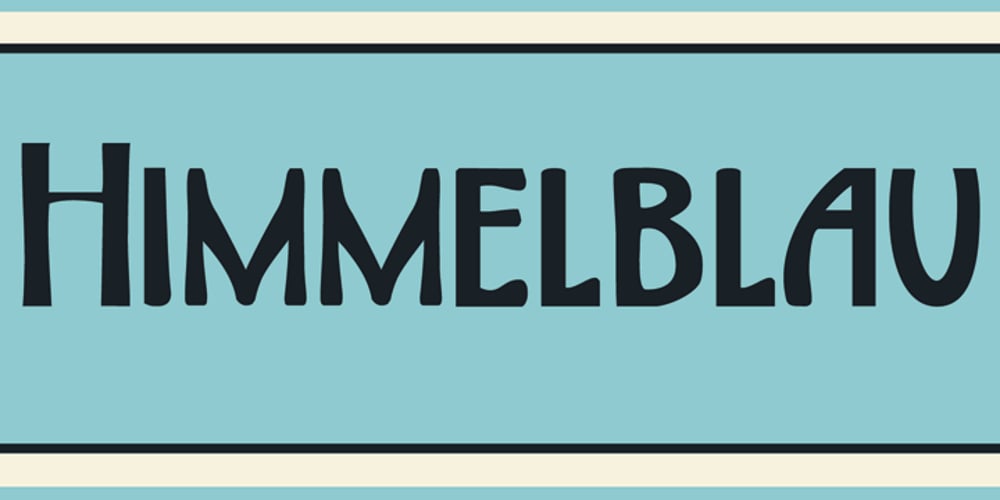
Himmelblau
Himmelblau font
Himmelblau Font Family was designed by David Kerkhoff and published by Hanoded. Himmelblau contains 2 styles and family package options. Himmelblau is a Jugendstil font based on a poster from 1902 made by the ‘Künstlerbund Hagen’. This group of Austrian artists was formed in the late 19th century and was named after the owner of Vienna inn, which the artists frequented. The group’s most prominent members were Heinrich Lefler and Joseph Urban. Himmelblau is quite an elegant font – legible, organic and flowing, so it would be perfect for posters and display uses. Himmelblau comes with extensive language support.